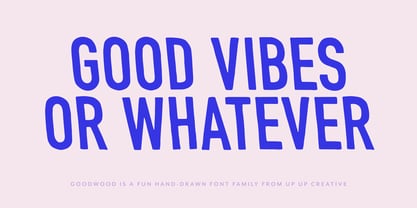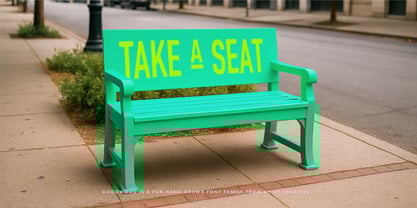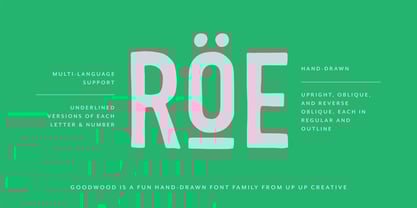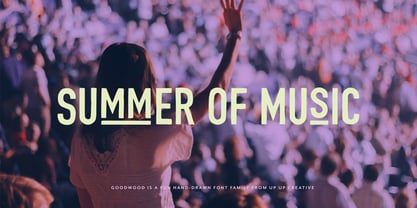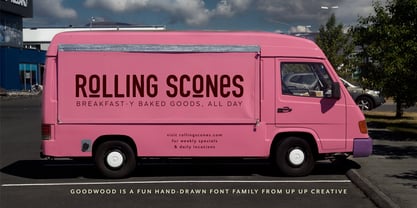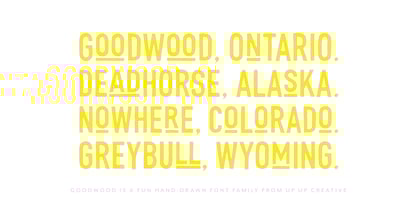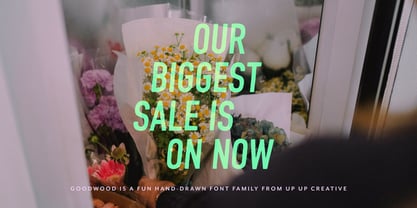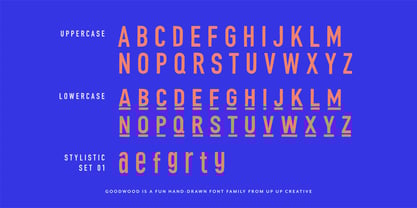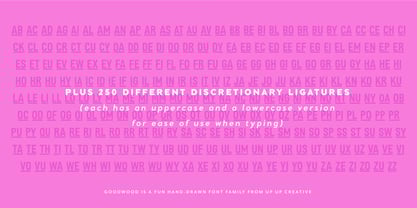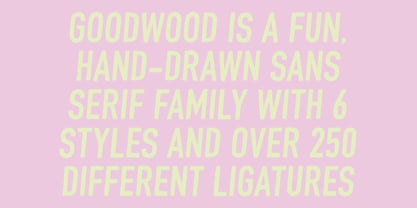
Goodwood
by Up Up Creative
The Goodwood Font Family was designed by Julie Green and published by Up Up Creative. Goodwood contains 6 styles.
Say hello to Goodwood, a bold, expressive 6-style font family built for impact. Hand-drawn and joyfully imperfect, Goodwood has leveled up with upright, oblique, and reverse oblique styles—plus outline versions of each. With 502 ligatures, support for 214 languages, 937 glyphs, and a playful stylistic set, this font doesn’t just show up—it makes an entrance. Whether you're working on a headline, logo, or anything that needs personality with a wink, Goodwood’s got the charm and the chops.
It’s fun. It’s flexible. It’s full of attitude. And yes, it’s still crafted with the same attention to detail as always.
Goodwood is perfect for bold logos, playful packaging, book titles, punchy headlines, and expressive merch. Its hand-drawn character shines in branding, editorial layouts, and anywhere you want your typography to stand out with personality. Multiple versions make it suitable for a wide range of design projects.